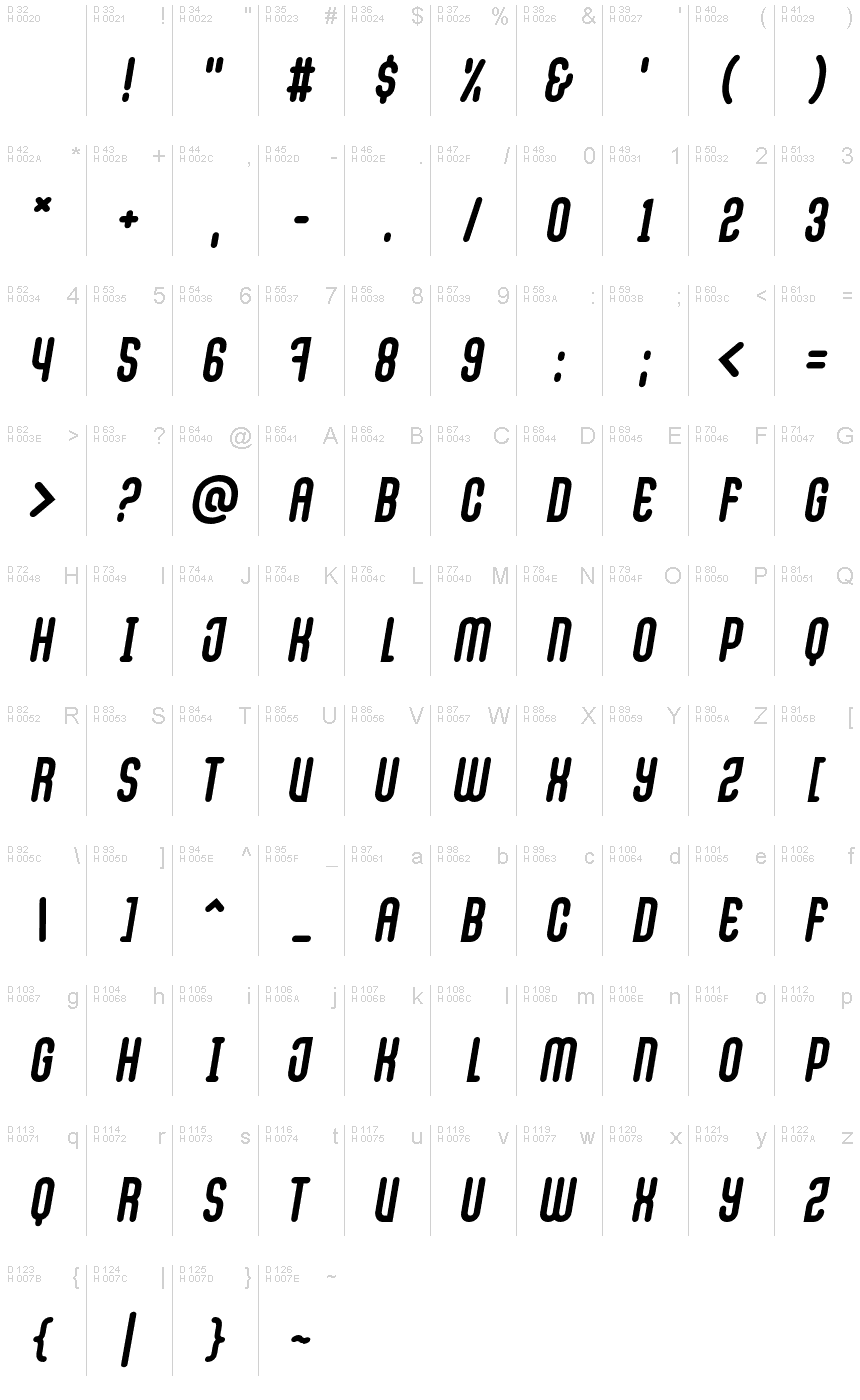
Cactron Bold Italic
Cactron семейство состоит из 4 шрифты
Inspired by city nights and neon lights, Cactron is a Sans-serif typeface family, showing mostly roundness and curves in its angles, while maintaining consistent strokes in almost a modular way.
Cactron has enough diacritics and special letters to support English, Spanish, French, Portuguese, German and Italian.